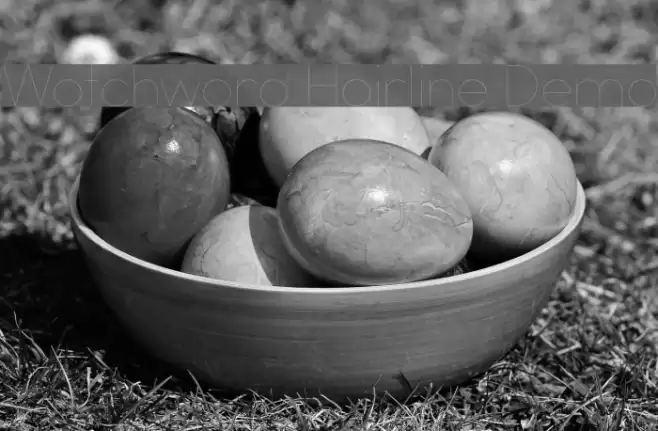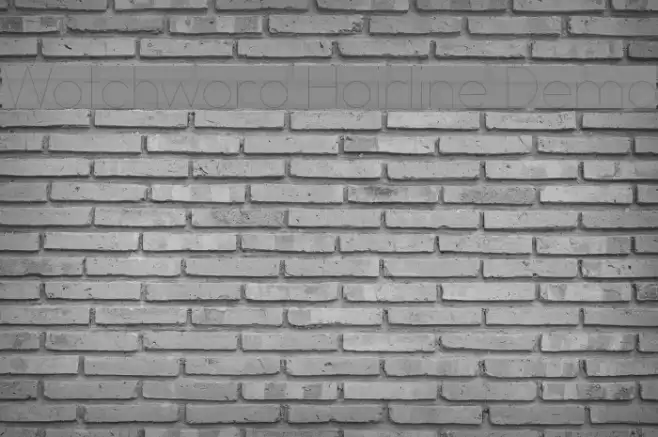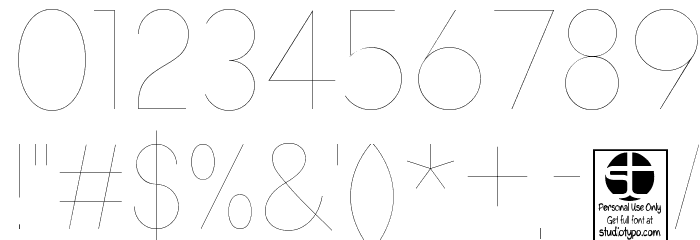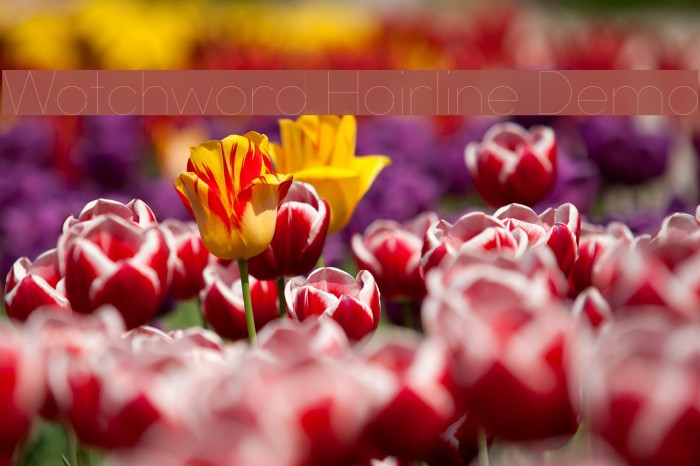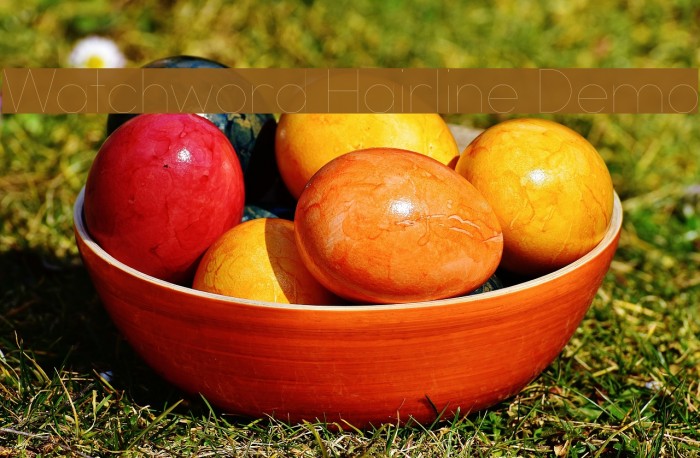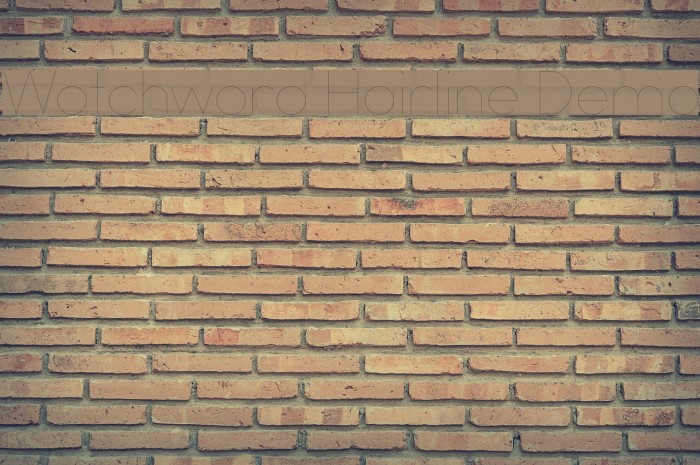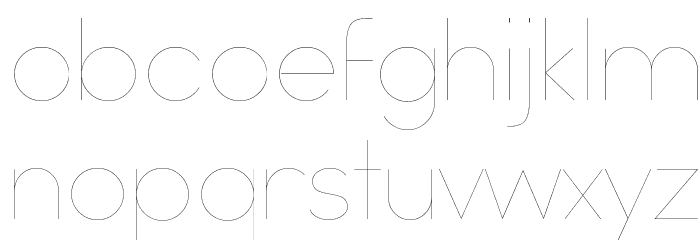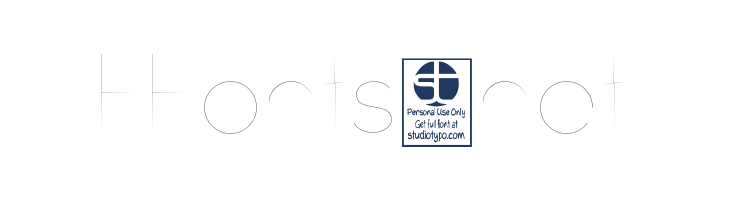
Watchword Hairline Demo Font
Watchword Hairline Demo Description
This font features an ultra-thin, elegant design with a minimalist aesthetic. The characters are crafted with a hairline stroke, giving them a delicate and refined appearance. The uppercase and lowercase letters maintain a consistent style, with smooth curves and straight lines that create a harmonious balance. The numerals and special characters are designed to match the overall sleek and modern look, making this font ideal for projects that require a sophisticated touch. Its simplicity and clarity make it suitable for a variety of design applications.
An ultra-thin, elegant font with a minimalist and modern aesthetic from Uncategorized fonts.
- Proposed Projects: Ideal for luxury branding, high-end fashion magazines, minimalist logos, and elegant invitations.
- Use Case: Logos, Headlines, Invitations